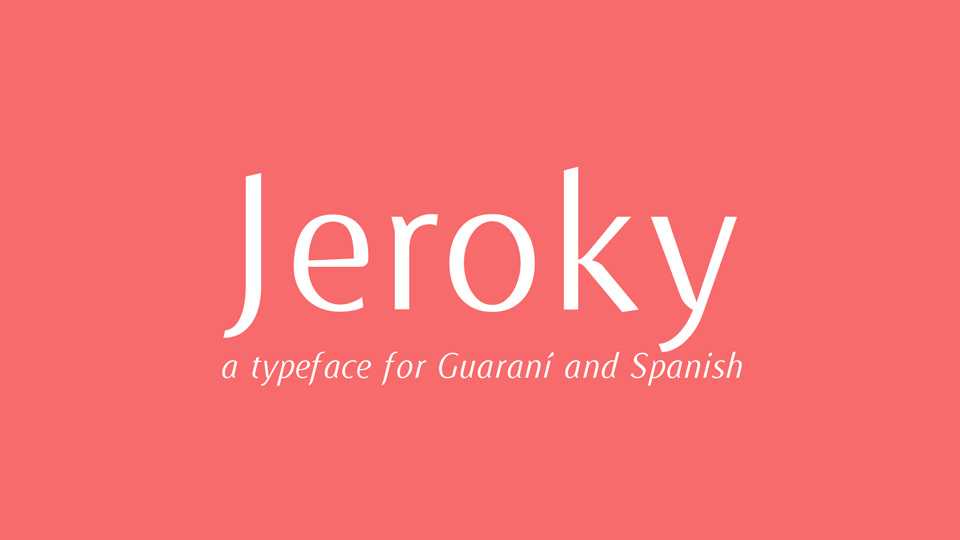
Download Jeroky typeface, a sans serif font family in two styles designed for educational and informative texts, dynamic but highly readable for Guarani and Spanish.
Designer: Juan Heilborn